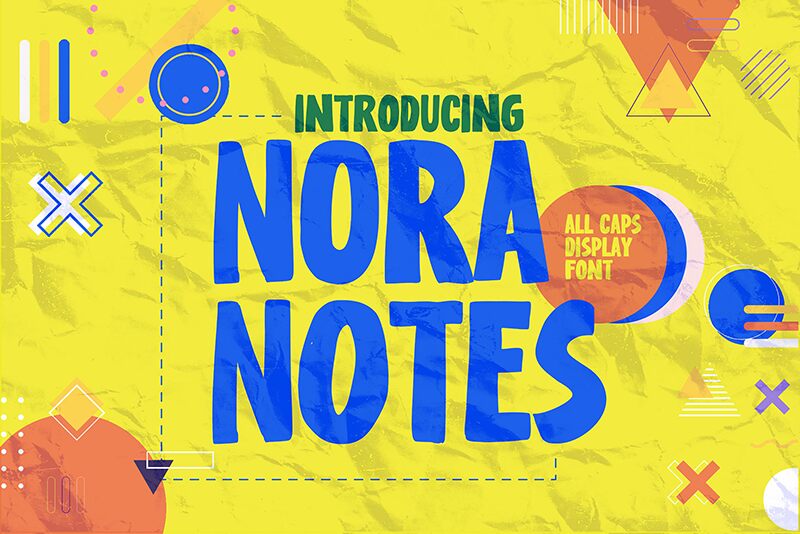
Nora Notes leaps off the page with its bold, condensed cartoon style that embodies a modern twist on playful lettering. Designed by Gassstype, this display font brings dramatic movement and a casual quickness to any creative project it graces. With its all-caps format and textured authenticity, Nora Notes is an exceptional choice for designers seeking to inject fun and character into their work.
Whether you're crafting eye-catching labels, vibrant posters, or engaging project designs that demand attention, Nora Notes stands out with its natural look and energetic flair. Perfect for a vast array of applications-including branding, packaging, greeting cards, websites, and more-this font also offers the versatility of alternate glyphs through OpenType features. Embrace the authentic charm of Nora Notes in your next design adventure for a touch of whimsy that's both modern and irresistibly fun!